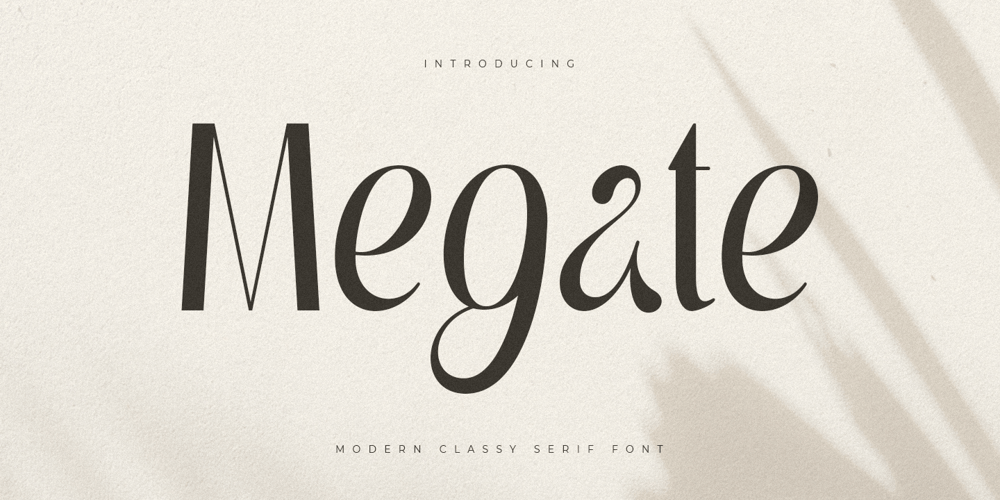
Megate Font Family was designed by Zamroni Hamzah and published by Sensatype Studio. Megate contains 2 styles and family package options. A Beauty serif font that we created special for elegant branding needs, with extra alternates in unique shape will be ready to add value of your brand. It so nice to leverage designer or product owner that need solutions to make their design look more classy and modern. And specially for Voyage font, We prepared any alternate characters to help you create unlimited variations for your creative needs.Megate Modern Classy Serif Font ready with: Any options to get creative variations (combination of Alternate characters) Preview as a inspirations that you can do with Megate font Ready with Lowercase and Uppercase characters Wish you enjoy our font. ๐